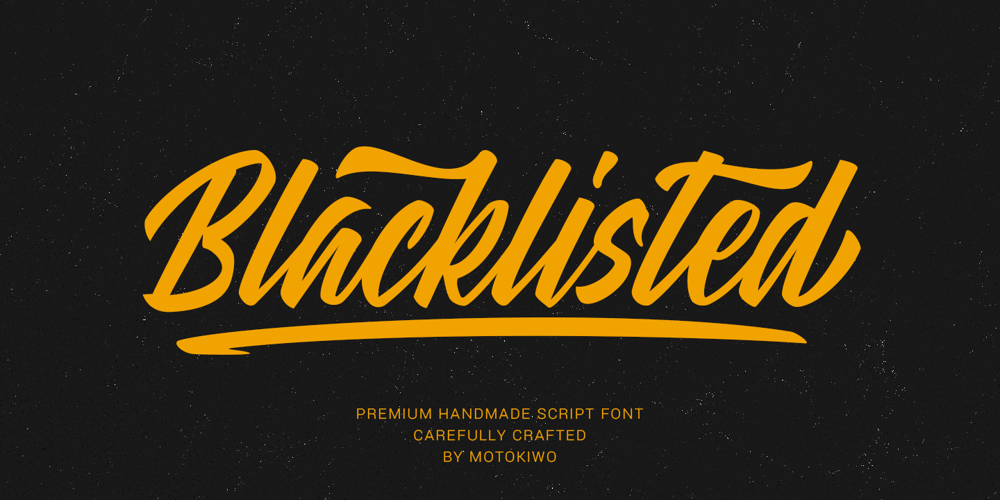
Blacklisted Font Family was designed by Anton Cahyono and published by Motokiwo. Blacklisted contains 1 styles and family package options. Blacklisted is a vintage script font with clean brush strokes. It’s very recommended for logo, branding, clothing, poster, and many more. You can customize every word with alternates characters and swashes. Blacklisted also support special characters for multilingual.Files & Features: Uppercase & Lowercase Numeral & Punctuation Stylistic Alternates Stylistic Sets (SS01 & SS02) Special Characters PUA Encoded